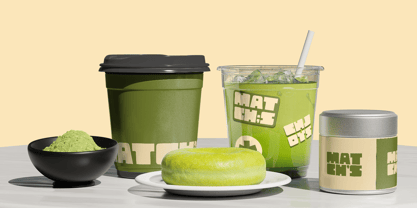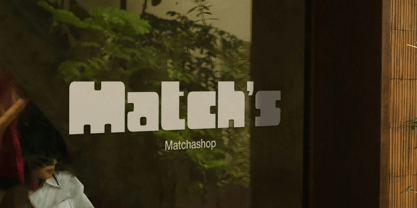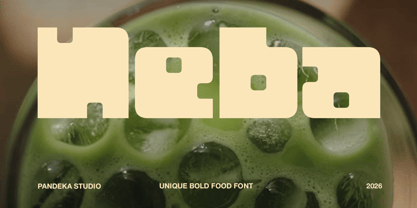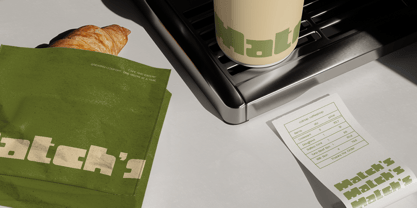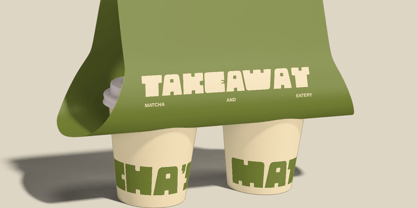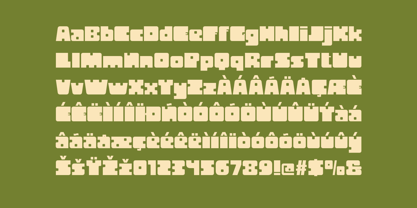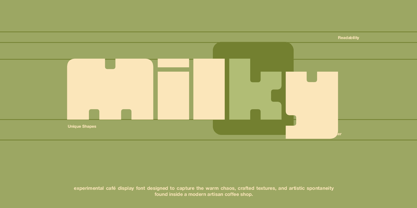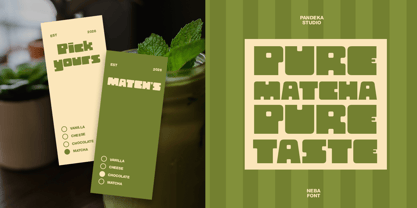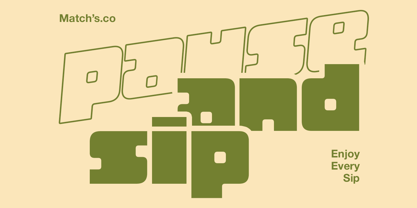
Neba
Die Schriftfamilie Neba wurde von Sagara Nararya entworfen und von Pandeka Studio veröffentlicht. Neba enthält 4 Stile und Familienpaketoptionen. Mehr über diese Familie
Neba is a unique bold display font inspired by playful food branding, artisan cafés, and contemporary packaging design. Featuring chunky geometric letterforms with distinctive cutout details, it delivers a fun, memorable, and eye-catching personality that instantly brings warmth and character to every design.
Available in 4 versatile styles: Regular, Outline, Oblique, and Oblique Outline, Neba gives you the flexibility to create bold and expressive typography across a wide range of creative projects. Whether used for logos, food packaging, café branding, restaurant menus, product labels, posters, social media graphics, or editorial headlines, its distinctive style helps brands stand out with confidence. Blending retro-inspired charm with modern geometric construction, Neba is the perfect choice for coffee shops, bakeries, beverage brands, snack packaging, organic products, and creative food-related branding.
• 4 Styles: Regular, Outline, Oblique, and Oblique Outline
• Full Character Set: Uppercase, lowercase, numbers, symbols, and punctuation